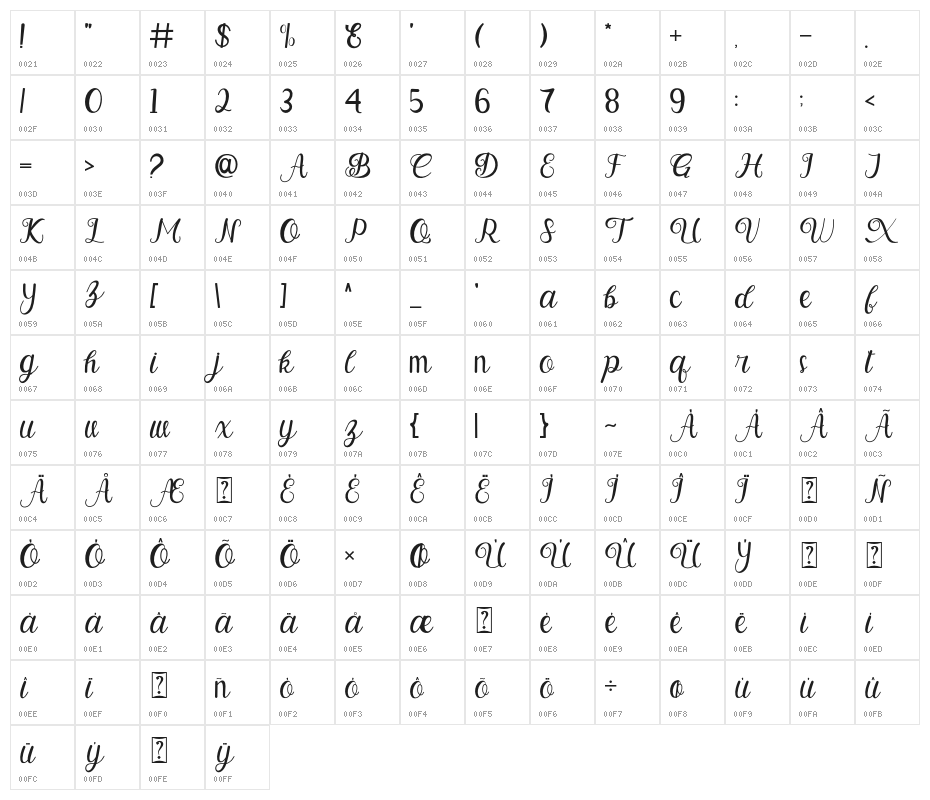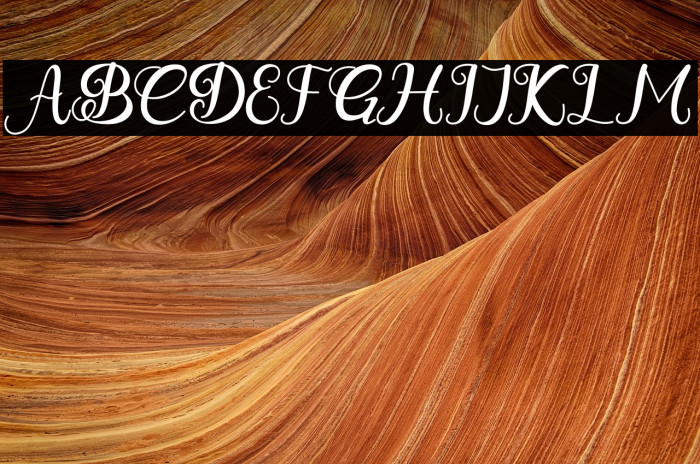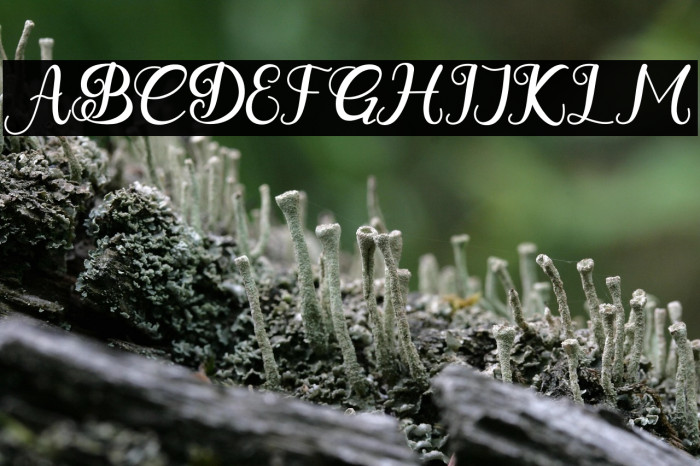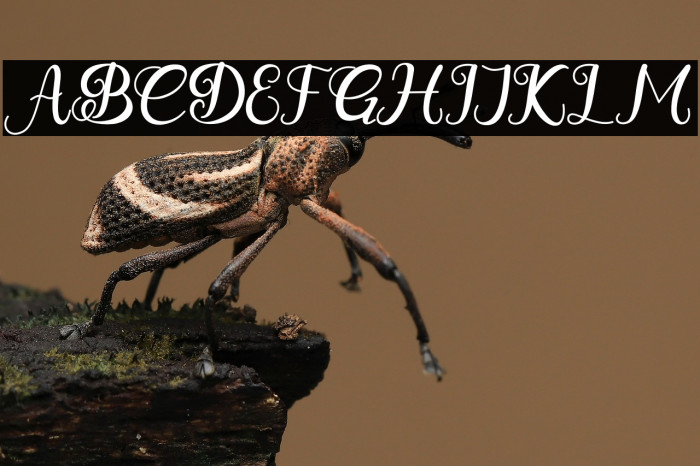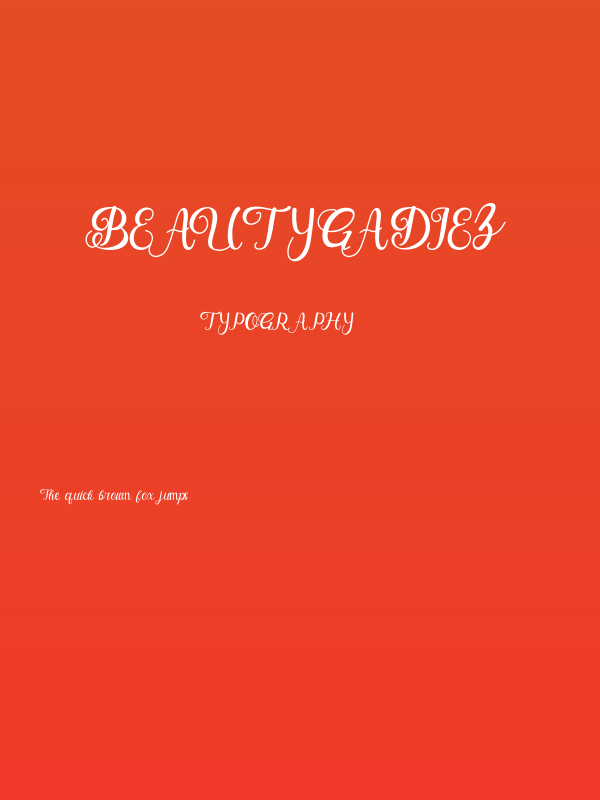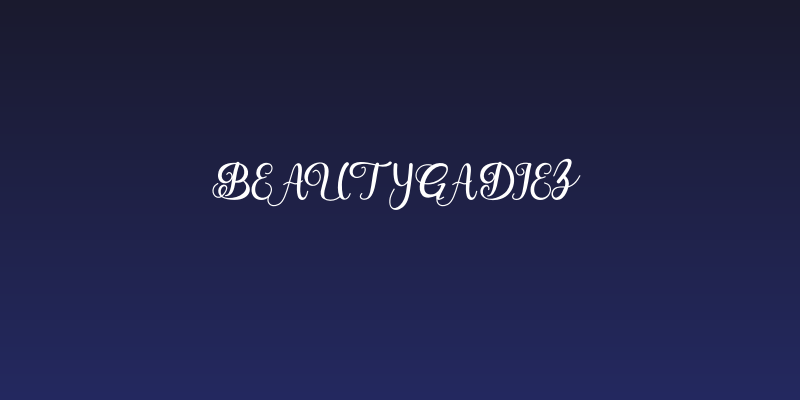
BeautyGadiez Font
BeautyGadiez Description
This font features an elegant and flowing script style, characterized by its smooth, cursive letterforms. The uppercase letters are ornate with graceful loops and swirls, while the lowercase letters maintain a consistent flow with slightly exaggerated ascenders and descenders. The numerals are designed to complement the letterforms, maintaining the same fluidity and elegance. Special characters are crafted with attention to detail, ensuring they blend seamlessly with the overall aesthetic. This font exudes a sense of sophistication and charm, making it suitable for a variety of creative applications.
| Proposed Projects | Ideal for wedding invitations, elegant branding, greeting cards, and decorative projects. |